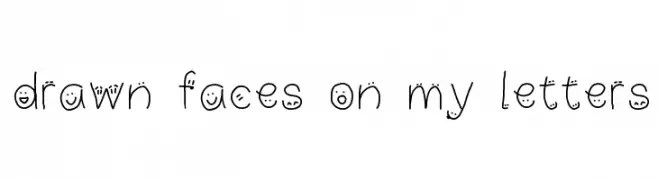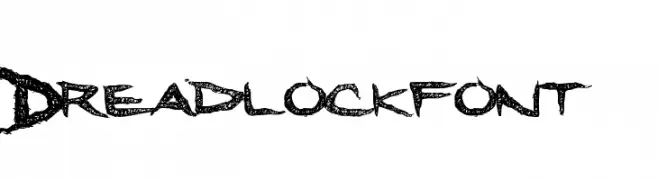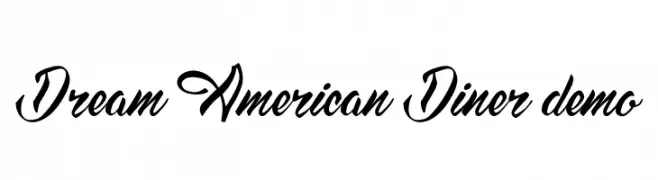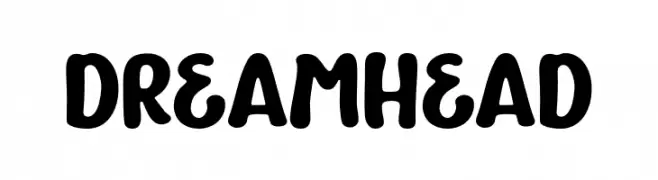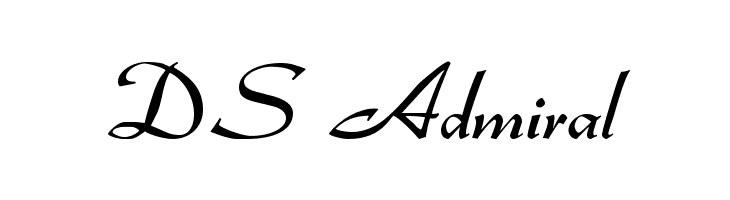
( Grizel Hernandez )
A playful, hand-drawn font with characters featuring whimsical faces.
( Alexander Kaiser - pooliestudios.com )
A sketch-like, hand-drawn font with a dynamic, textured appearance.
( Patricio Zambra )
A bold, textured font with a distressed, hand-drawn style.
A bold, high-contrast serif font with modern cut-out details.
A bold, flowing script font with vintage American diner charm.
( Fonts by Khurasan )
A playful, bold font with rounded, thick strokes and a whimsical touch.
A whimsical and elegant script font with flowing, interconnected letters and decorative flourishes.
A playful, handwritten font with flowing, dynamic characters.
( Fonts by Eko Bimantara )
A playful, bold font with rounded edges and a hand-drawn feel.